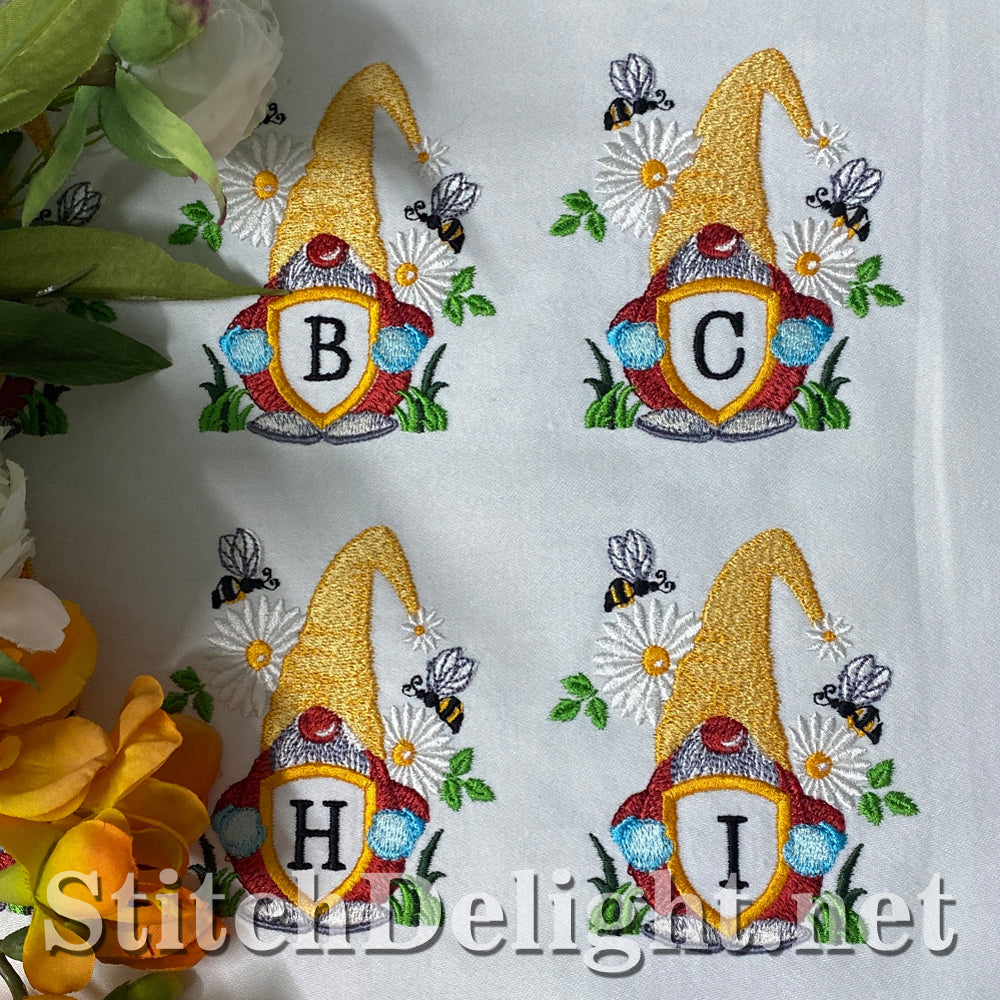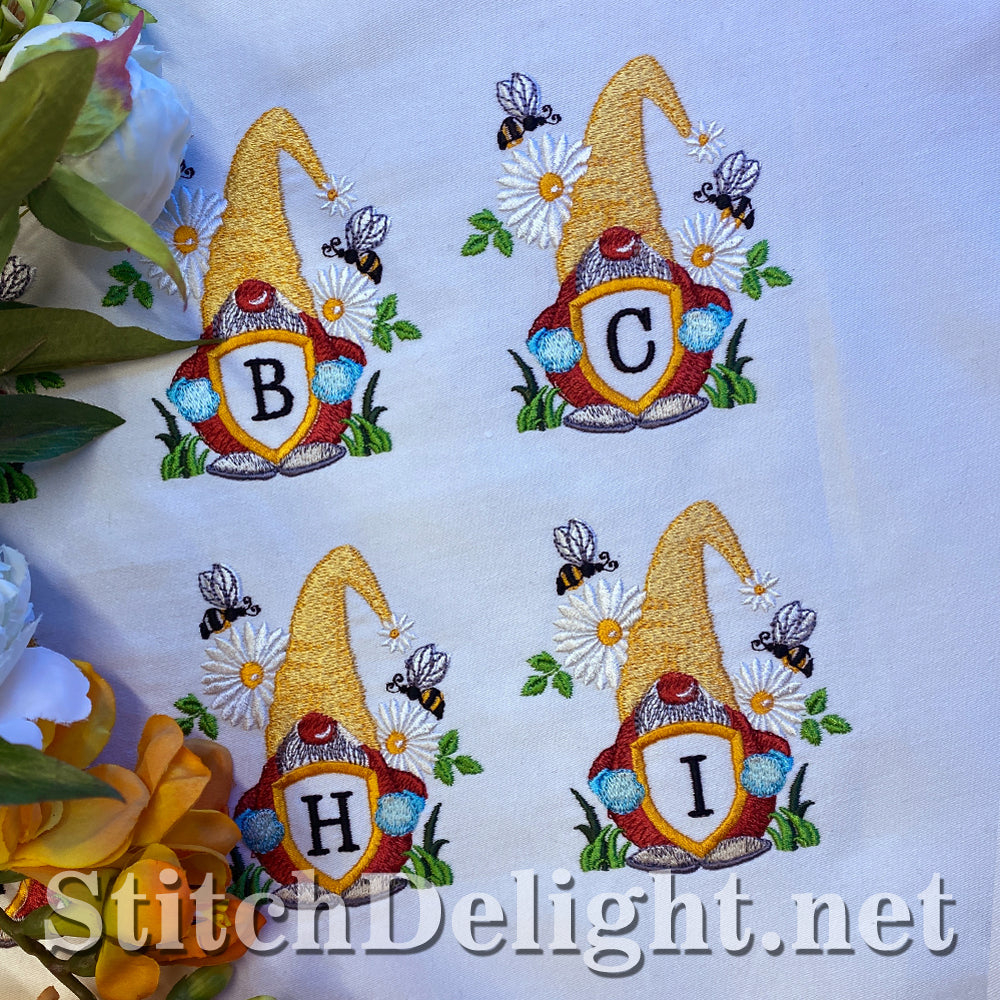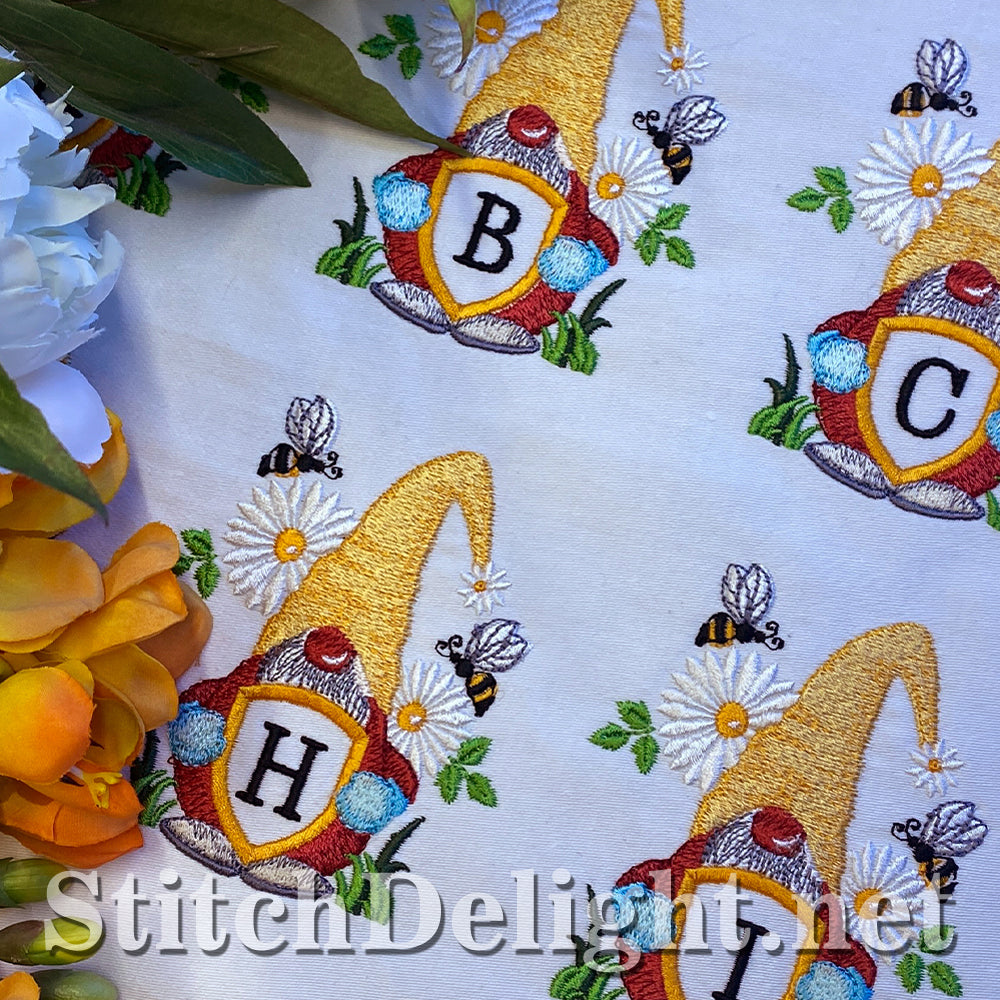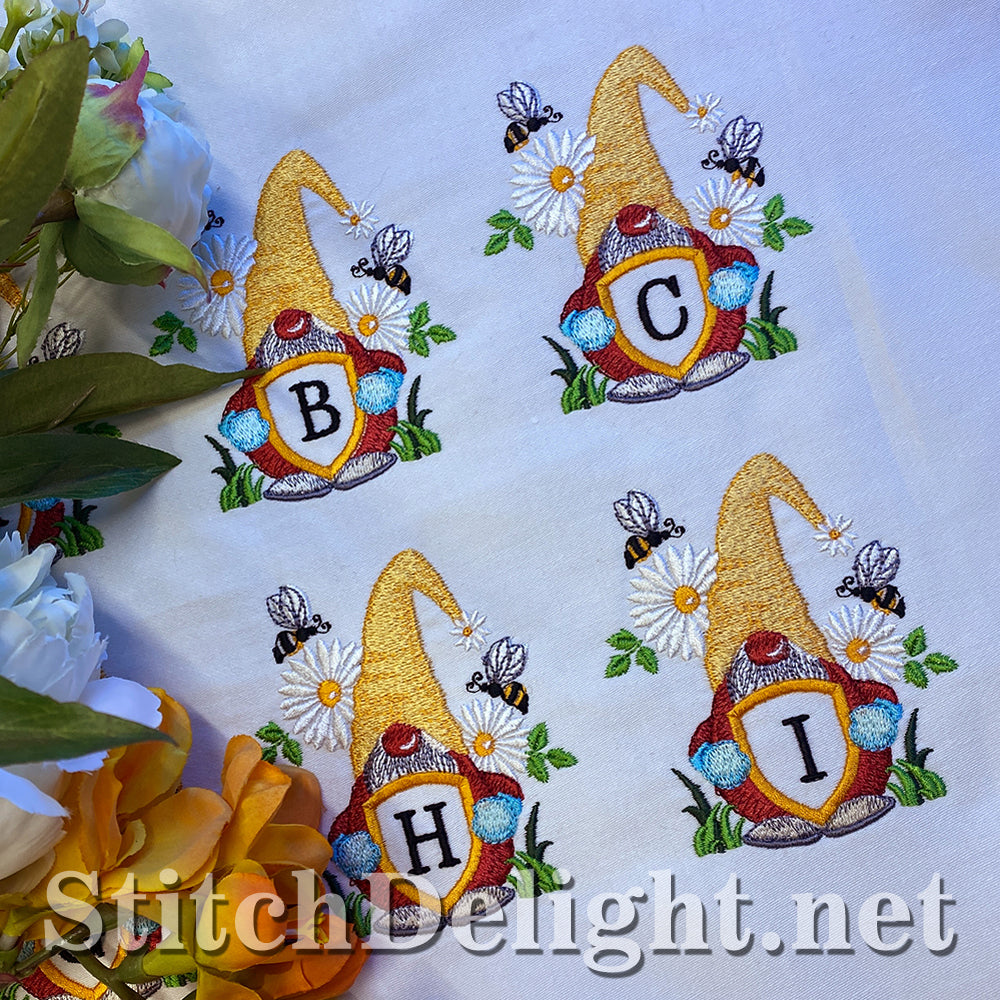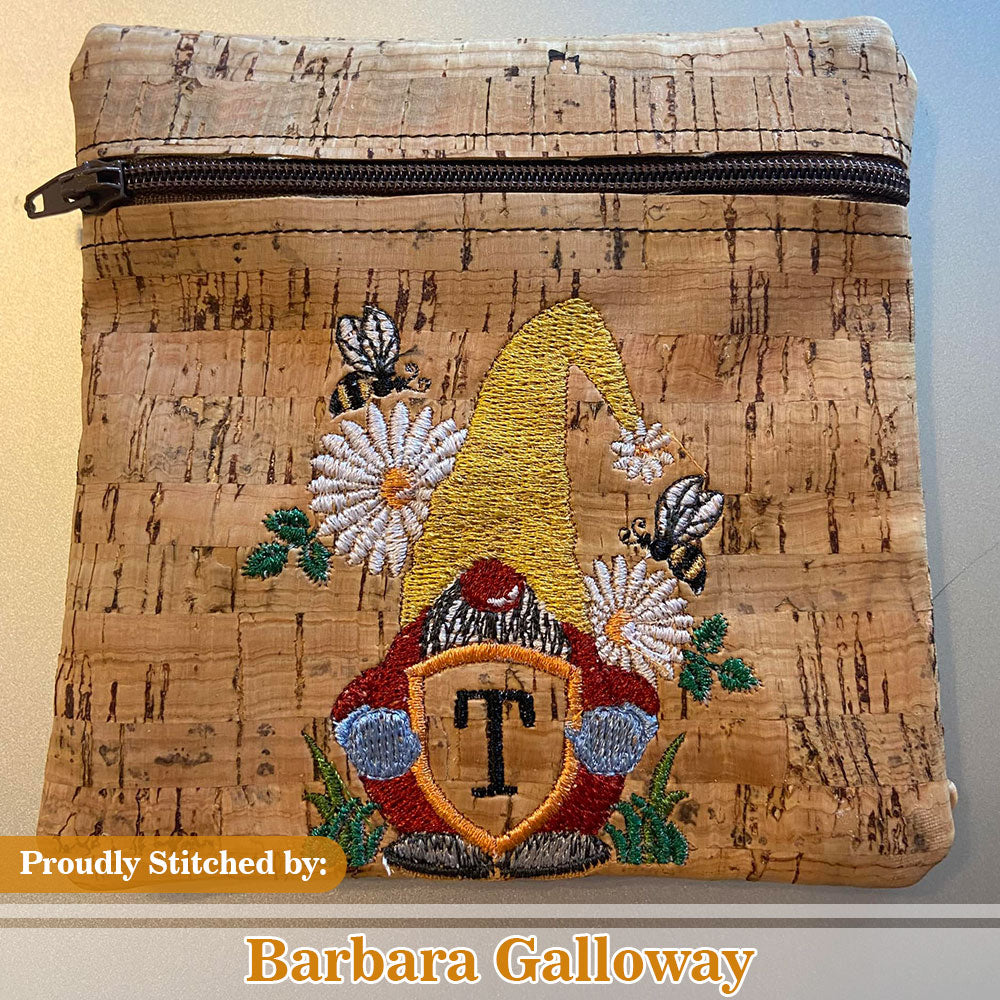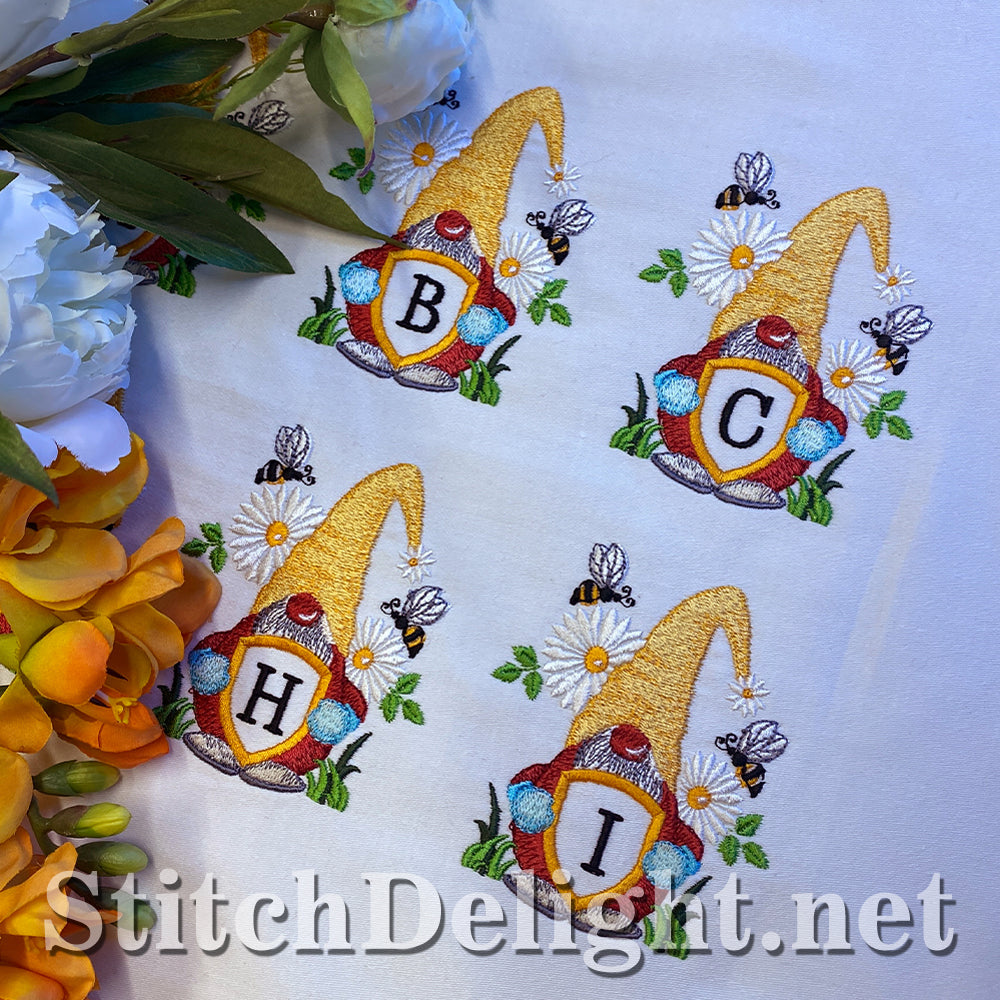
This adorable font has an average height of 3.6" - Looking for a font to match? Fonts with an average height of 0.6" to 0.9" would work perfectly with this Gnome Font. I'd recommend SDS1755 Hunter Font.